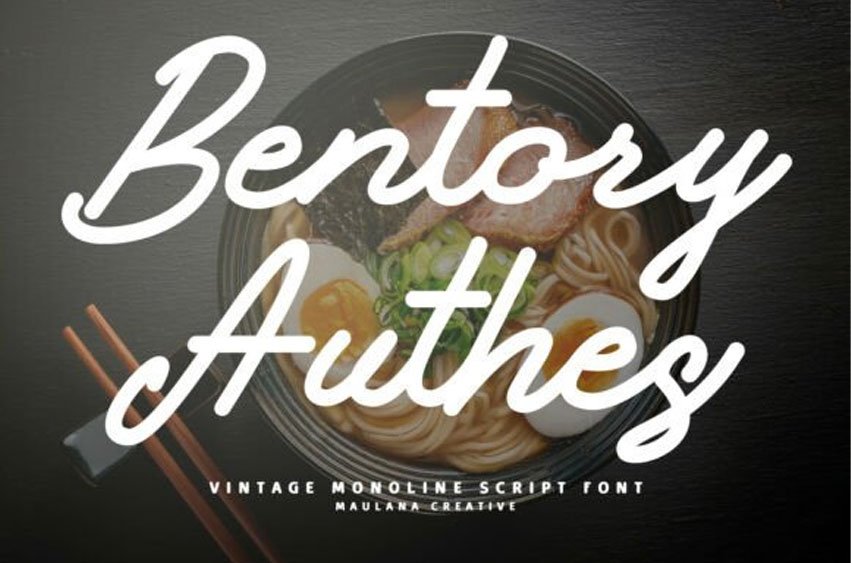
Bentory Authes Font is a stylish monoline script font that perfectly blends vintage aesthetics with a modern, clean execution.
Its smooth, flowing strokes and consistent line weight capture the nostalgic feel of classic 1950s signage and retro branding.
With its smooth, flowing strokes and authentic hand-drawn feel, the Bentory Authes typeface is incredibly versatile, making it ideal for everything from high-end restaurant menus to retro-inspired apparel.
The rhythmic connection between letters in the Bentory Authes font creates a sophisticated yet approachable aesthetic that pairs effortlessly with minimalist serif fonts or rugged block type. Use this Bentory Authes typeface to add a personal, “human” touch to your logo designs, wedding stationery, or social media quotes. Its clean lines ensure legibility at various sizes, while its elegant swashes provide a sense of movement and craft. Whether you’re designing a label for an artisan product or a headline for a vintage blog, this font brings timeless style to the modern screen and page.
Designed by Maulana Creative, this font features elegant ligatures and a full set of uppercase, lowercase, and multilingual characters. It is an ideal choice for logos, design, cafe branding, and product packaging where a touch of authentic, handcrafted charm is required.